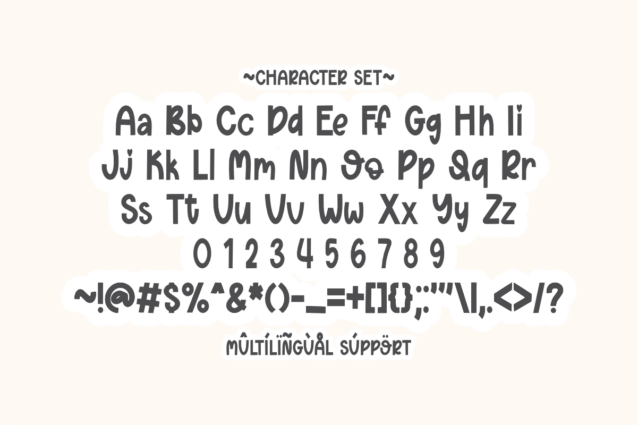
Sweet Smile Display Font
Sweet Smile Display Font is a cute and playful sans-serif font designed to bring joy and charm to your creative projects. With its slightly irregular and hand-drawn feel, this font is perfect for fun designs such as children’s books, greeting cards, branding, social media graphics, stickers, and DIY crafts. The rounded and friendly letterforms create a warm and cheerful atmosphere, making it ideal for crafters, KDP creators, and designers looking for a fun yet readable typeface. Sweet Smile adds a delightful touch to any design with its playful and stylish personality.